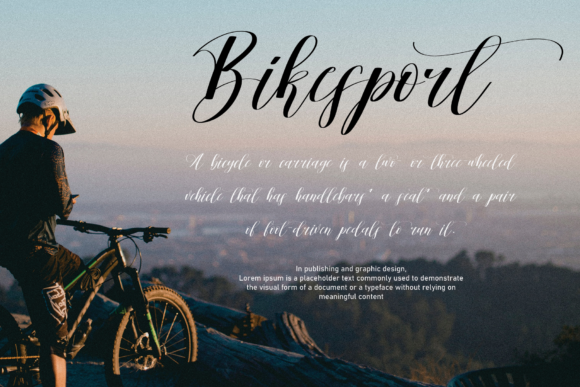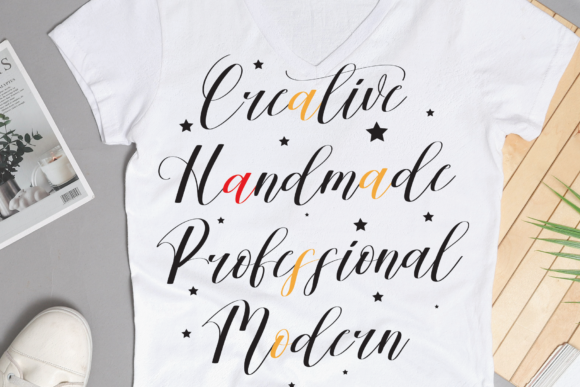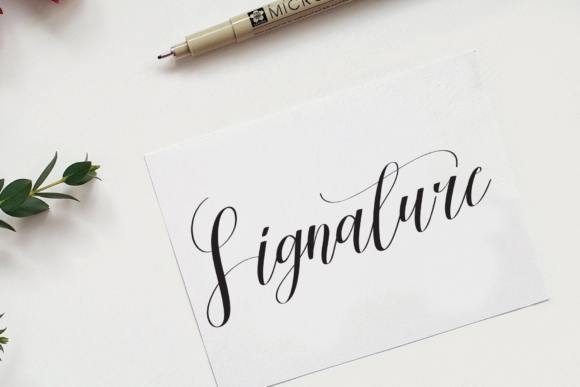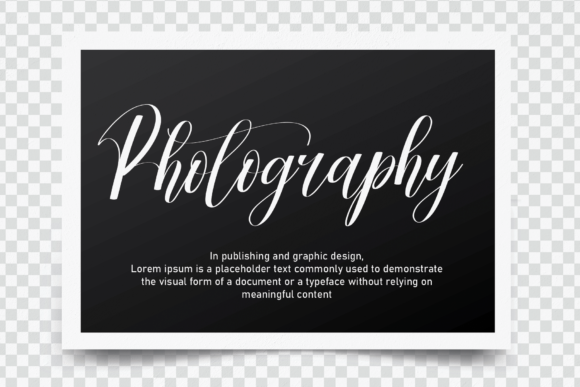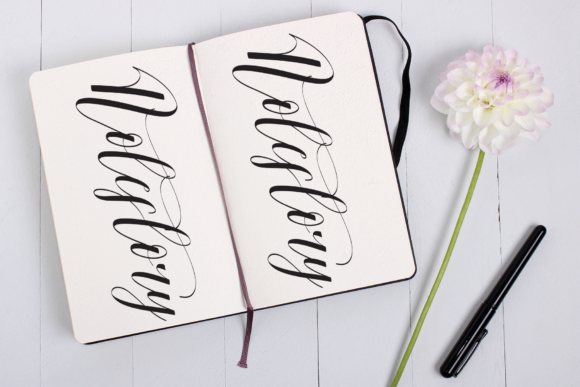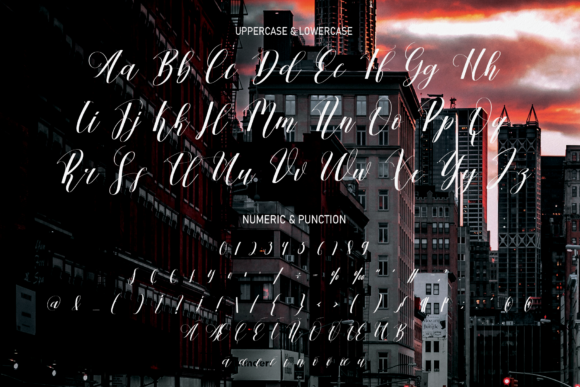
Introducing California Font: The Perfect Handwritten Style for Your Creative Projects
Are you a designer or crafter looking for a unique and stylish font to elevate your creative projects? Look no further than California Font, an organic handwritten font that is perfect for a wide range of applications. With its latest style letters, California Font is ideal for adding a touch of elegance and sophistication to your designs.
What is California Font?
California Font is a beautiful, organic handwritten font that is designed to mimic the natural flow of handwriting. Its unique and stylish letters are perfect for adding a personal touch to your designs, making it ideal for a wide range of creative projects. Whether you’re looking to create stunning wall displays, elegant wedding invitations, or eye-catching social media posts, California Font is the perfect choice.
Uses for California Font
California Font is a versatile font that can be used for a wide range of creative projects, including:
- Wall displays: Add a touch of elegance to your wall displays with California Font’s stylish letters.
- Wedding invitations: Make your wedding invitations truly special with California Font’s beautiful, handwritten style.
- Social media posts: Elevate your social media posts with California Font’s unique and eye-catching letters.
- Logos: Create stunning logos for your business or brand with California Font’s stylish letters.
- Advertisements: Add a touch of sophistication to your advertisements with California Font’s elegant style.
- Product packaging: Make your product packaging truly special with California Font’s unique and stylish letters.
- Product designs: Add a touch of elegance to your product designs with California Font’s beautiful, handwritten style.
- Labels: Create stunning labels for your products or business with California Font’s stylish letters.
- Photography: Add a touch of sophistication to your photography with California Font’s elegant style.
- Watermarks: Create stunning watermarks for your photos with California Font’s unique and stylish letters.
- Invitations: Make your invitations truly special with California Font’s beautiful, handwritten style.
- Stationery: Elevate your stationery with California Font’s elegant and sophisticated style.
Why Choose California Font?
There are many reasons why California Font is the perfect choice for your creative projects. Here are just a few:
- Unique and stylish letters: California Font’s letters are truly one-of-a-kind, making it perfect for designers and crafters who want to add a touch of elegance to their designs.
- Organic handwritten style: California Font’s organic handwritten style gives it a natural, effortless feel that is perfect for a wide range of creative projects.
- Versatile: California Font can be used for a wide range of creative projects, making it a great addition to any designer’s or crafter’s toolkit.
- Elegant and sophisticated: California Font’s elegant and sophisticated style makes it perfect for designers and crafters who want to add a touch of luxury to their designs.
Tips for Using California Font
Here are a few tips for using California Font in your creative projects:
- Use it sparingly: California Font is a stylish font, but it can be overwhelming if used too much. Use it sparingly to add a touch of elegance to your designs.
- Pair it with other fonts: California Font pairs well with other fonts, so don’t be afraid to experiment with different combinations.
- Experiment with different sizes: California Font looks great in a variety of sizes, so experiment with different sizes to find the one that works best for your design.
California Font is a beautiful, organic handwritten font that is perfect for designers and crafters who want to add a touch of elegance and sophistication to their creative projects. With its unique and stylish letters, California Font is ideal for a wide range of applications, from wall displays and wedding invitations to social media posts and product packaging. Whether you’re a seasoned designer or a crafter just starting out, California Font is a great addition to any toolkit.